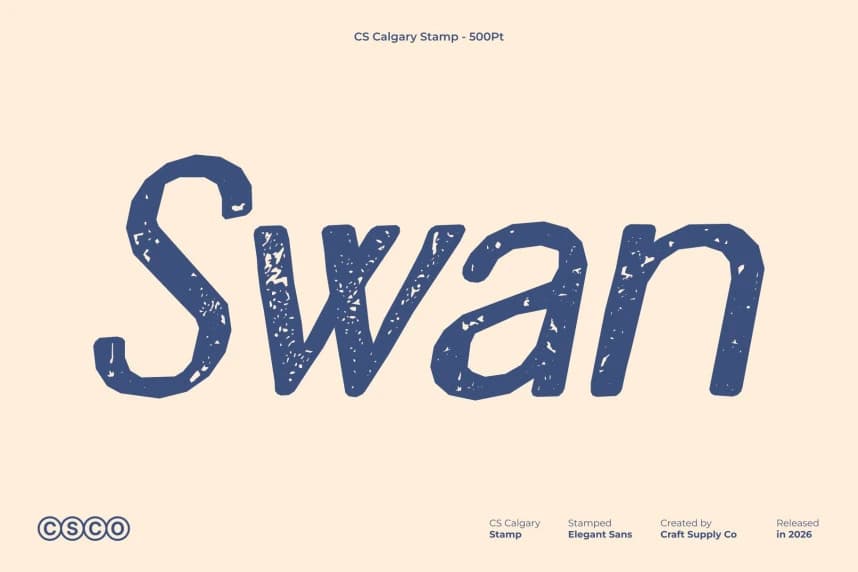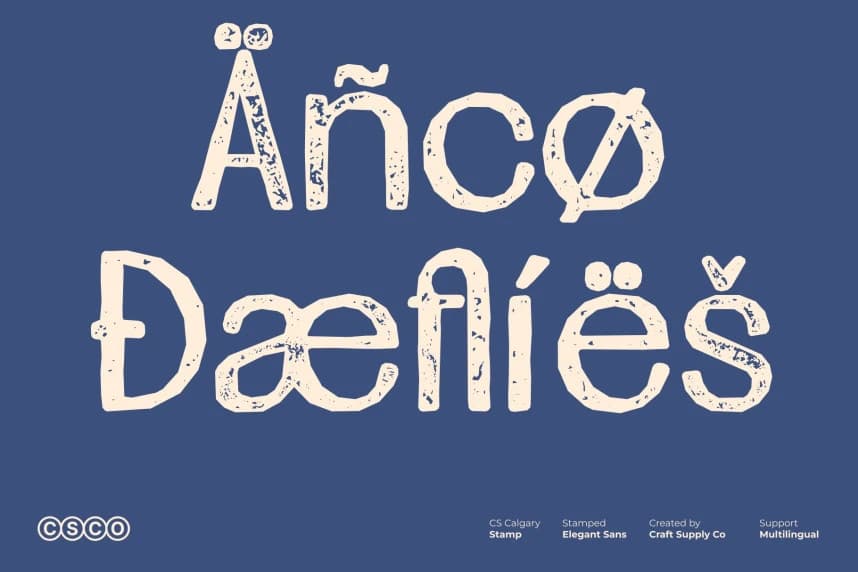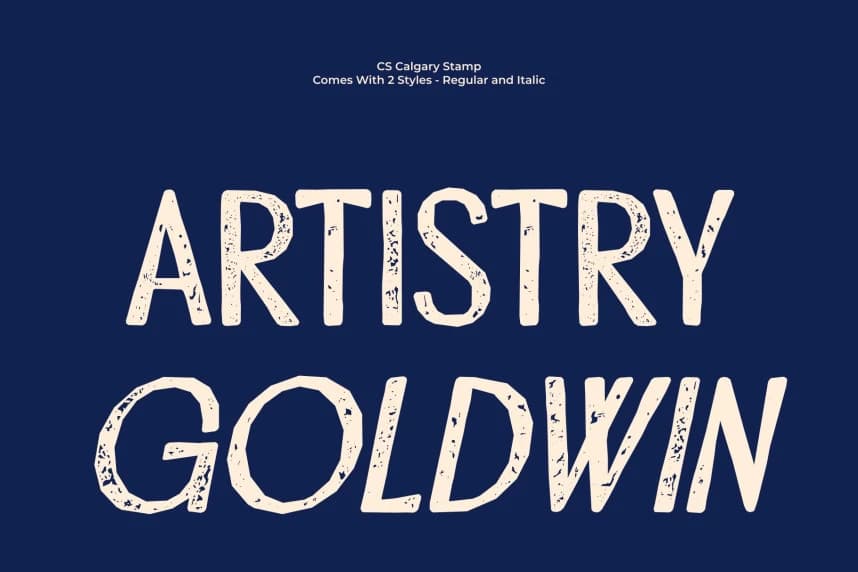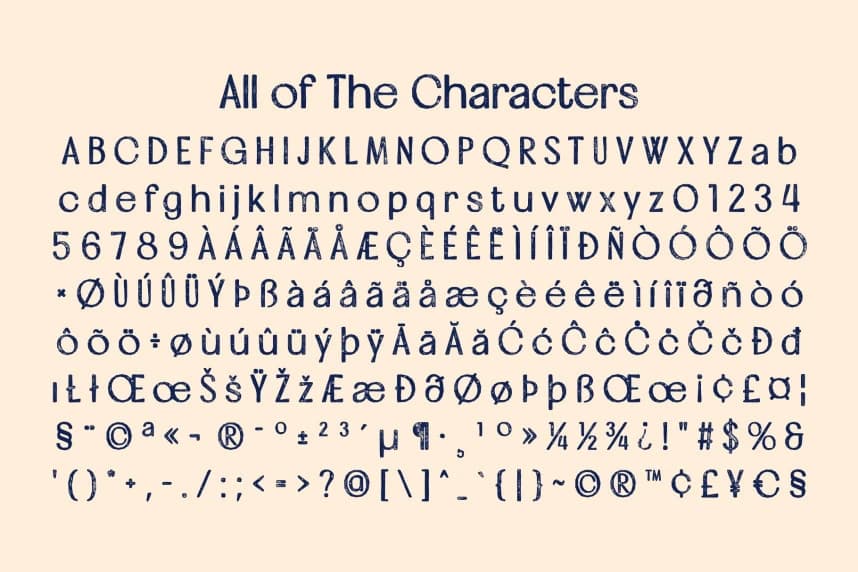
CS Calgary Stamp Font
CS Calgary Stamp Font – Minimalist Luxury with Vintage Stamp Character Modern Sans Serif Meets Timeless Texture. This blends minimalist sophistication with the tactile charm of a stamp effect.